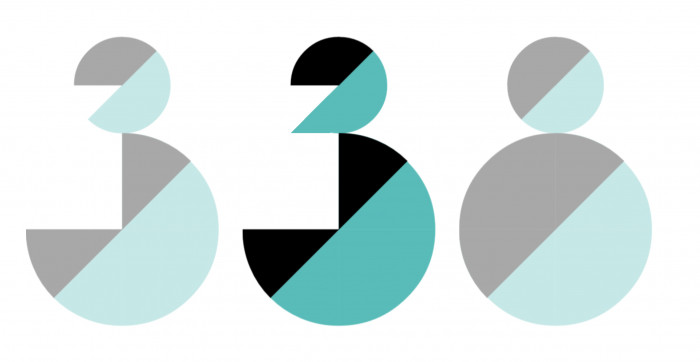
Wow. great use of colors!
- "Bauhaus-powerrr"
Very solid stuff..
Exceptionally excellent!
I'm with the people! Charming font, compa!
What do you think about this little modification on the "3" glyph?
@Elmo Hello companero! Your 3 is looking good, thanks!
@kassymkulov: Dear compa, what would you call the green/blue colour you used in the font? Maybe "aquamarine blue" or similar? Don't worry, it's just a semantic question.
Honestly, I have no idea :) I'm not very good when it comes to colors. It seems to me more like aqaumarine blue. Just noticed that it also look like the Sets tags color of Fontstruct.
Congratulations! FontStruct Staff have deemed your FontStruction worthy of special mention. “KD Hult” is now a Top Pick.
Congrats on this well deserved TP, compañero!
This font looks pretty nice as well.
Very cool, I like it. Sorry for spamming this picture, but I want to share an idea for a color font, maybe you're interested.
Thanks. Yeah, that S is really something and it  can be mimicked with connecting bricks to some extent. But it does give me some ideas and is reminiscent of my Kalyn font.